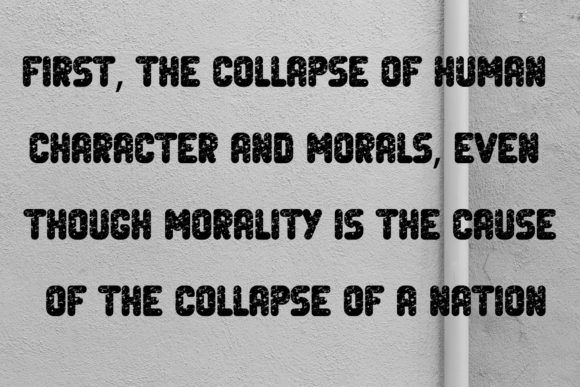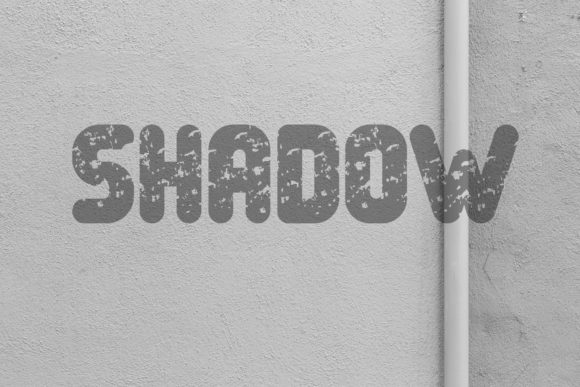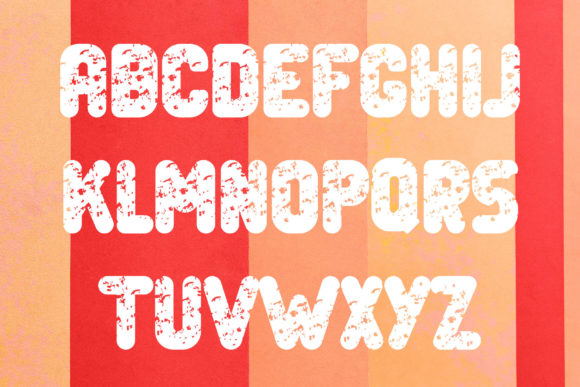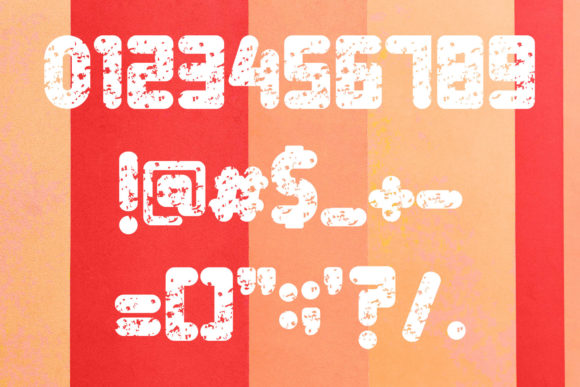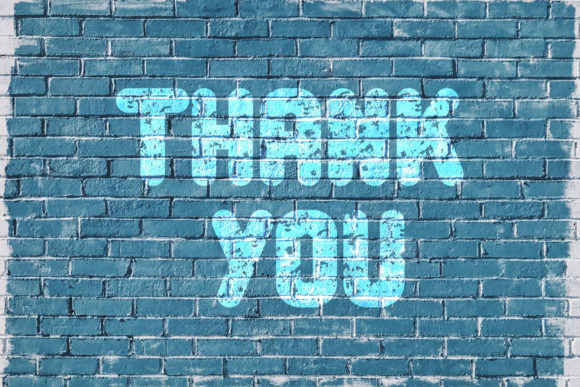
The Dark Side of Typography: Unleashing the Power of Dark Side Font
I’ll never forget the design project that led me to discover the Dark Side Font. I was working on a bold, edgy campaign for a music festival, and I needed a font that could capture the raw energy of the event. After hours of scrolling through font libraries, I stumbled upon Dark Side – a cool, bold, rough styled display font that instantly resonated with my vision.
Dark Side is more than just a font – it’s an asset to any creative’s library. Its versatility makes it perfect for a wide range of projects, from bold headlines to striking logos. In this article, I’ll share my honest review of Dark Side Font, provide a practical guide on how to use it, and explore similar fonts that can elevate your designs.
An Honest Review of Dark Side Font
- ✨ **Bold and Edgy**: Dark Side Font is perfect for making a statement. Its rough, bold style adds a touch of rebelliousness to any design.
- ✅ **Versatile**: Whether you’re working on a music festival poster, a fashion brand logo, or a bold social media graphic, Dark Side Font adapts seamlessly.
- 💡 **High-Impact**: This font demands attention, making it ideal for headlines, titles, and key messages.
While Dark Side Font is incredibly powerful, there are a few things to keep in mind:
- 🤔 **Legibility at Small Sizes**: Due to its bold, rough style, Dark Side Font can become difficult to read at smaller sizes. It’s best used for headlines or titles.
- ⚠️ **Limited Use in Body Text**: This font is not designed for body text. Its boldness can be overwhelming for longer paragraphs.
The creator of Dark Side Font drew inspiration from the raw energy of urban landscapes and the rebellious spirit of rock music. The goal was to craft a font that could channel that same boldness and attitude, making it perfect for designers looking to make a statement.
Q: What type of projects is Dark Side Font best suited for?
A: Dark Side Font excels in bold, attention-grabbing applications such as posters, logos, and social media graphics. It’s perfect for designs that require a strong, edgy presence.